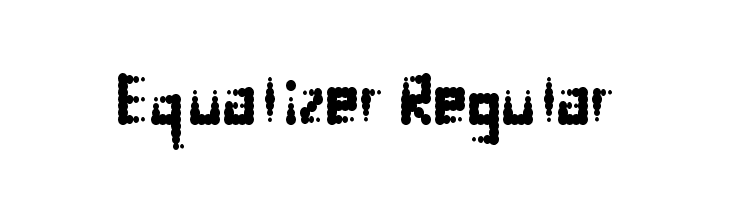
A digital, segmented font inspired by classic LED displays, perfect for tech-themed designs.
A dot-matrix style font with a digital, retro aesthetic.
A geometric, grid-based font with a digital, pixelated style.
A pixelated, monospaced font with a retro digital aesthetic.
A dot matrix style font with a modern, digital appearance.
A dot matrix style font inspired by LED displays, offering a modern and digital aesthetic.